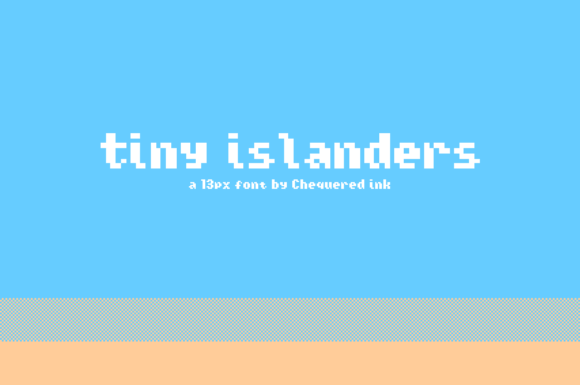
Tiny Islanders Font
Dive into the captivating world of Tiny Islanders, a pixel font straight from the golden era of retro video games. Crafted by the masters at Chequered Ink, this font is your ticket to creating experiences that ignite nostalgic memories and transport users to worlds unknown.
With each pixel meticulously crafted, Tiny Islanders delivers a raw and authentic charm that will make your designs burst with character. Let the square-shaped letters and sharp angles evoke the pixelated artistry of classic arcade games, bringing a touch of digital history to your projects.
Whether you're designing captivating game interfaces, eye-catching logos, or retro-themed websites, Tiny Islanders is your ultimate weapon. Its versatility empowers you to create captivating headlines, memorable branding, and engaging content that will leave a lasting impression.
Embrace the allure of Tiny Islanders and let its retro charm amplify your creations. Its captivating nature and pixelated perfection will transform your designs into unforgettable experiences that resonate with the hearts of gamers and retro enthusiasts alike.